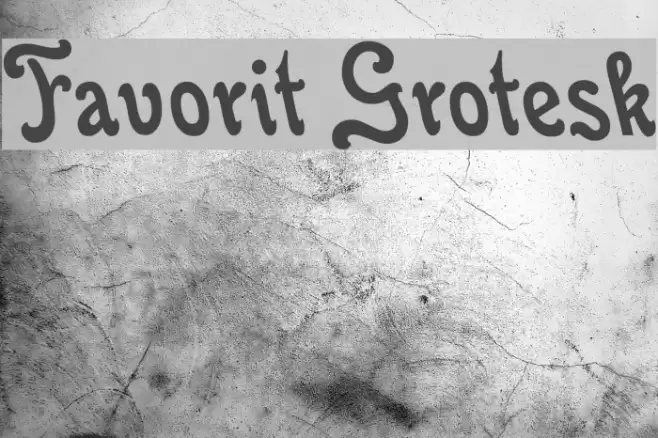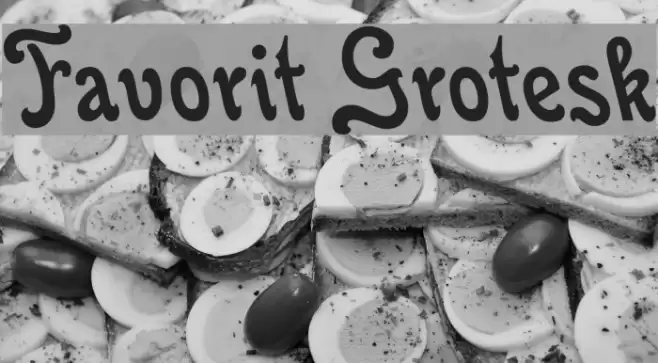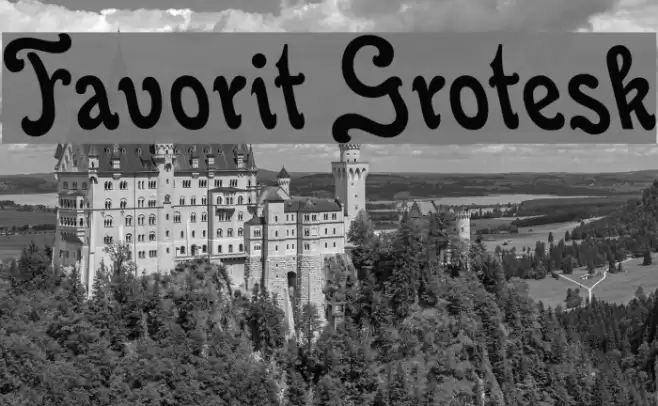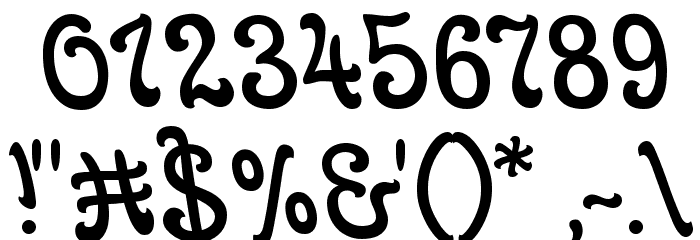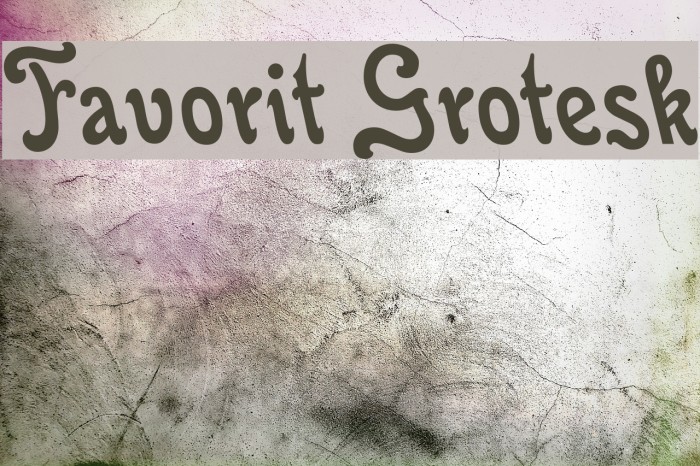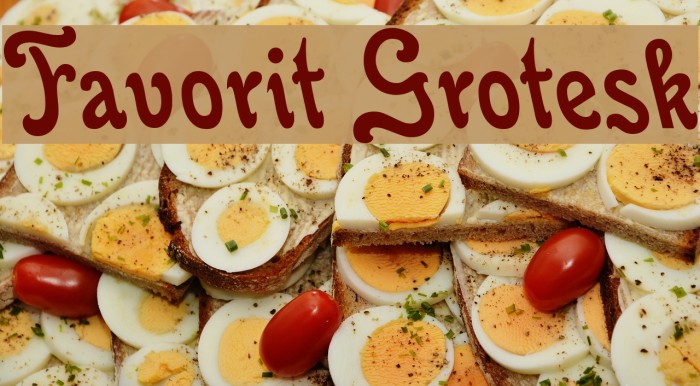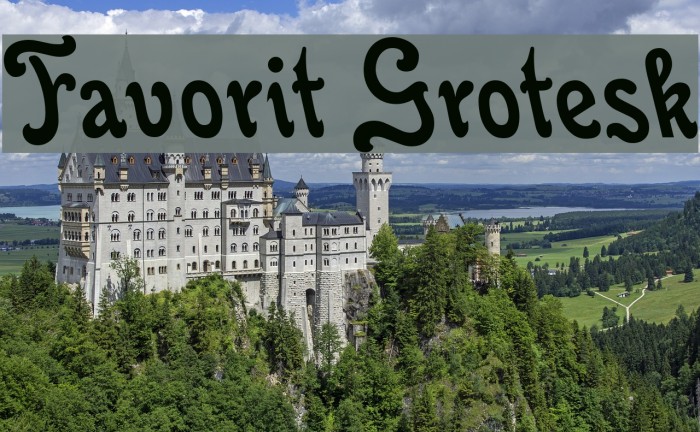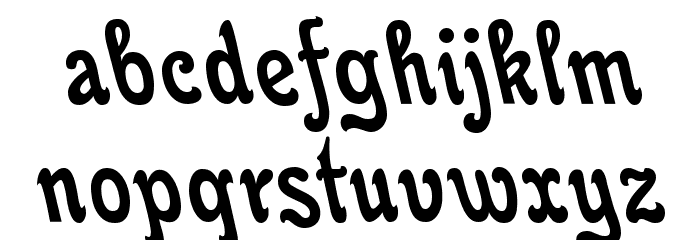
Favorit Grotesk Font
Favorit Grotesk Description
This font features a playful and whimsical design with a bold, rounded appearance. The characters exhibit a unique blend of curves and loops, creating a lively and energetic feel. The uppercase letters are particularly distinctive, with exaggerated serifs and flourishes that add to the font's decorative nature. The lowercase letters maintain the same playful style, ensuring consistency across text. The numbers and special characters are equally bold and expressive, making them stand out in any design. This font's overall style is both eye-catching and fun, perfect for projects that require a touch of creativity and flair.
A bold, playful font with rounded, decorative characters and whimsical flourishes from Uncategorized fonts.
- Proposed Projects: Ideal for children's books, playful branding, creative posters, and whimsical invitations.
- Overall Style: Playful, Whimsical, Decorative